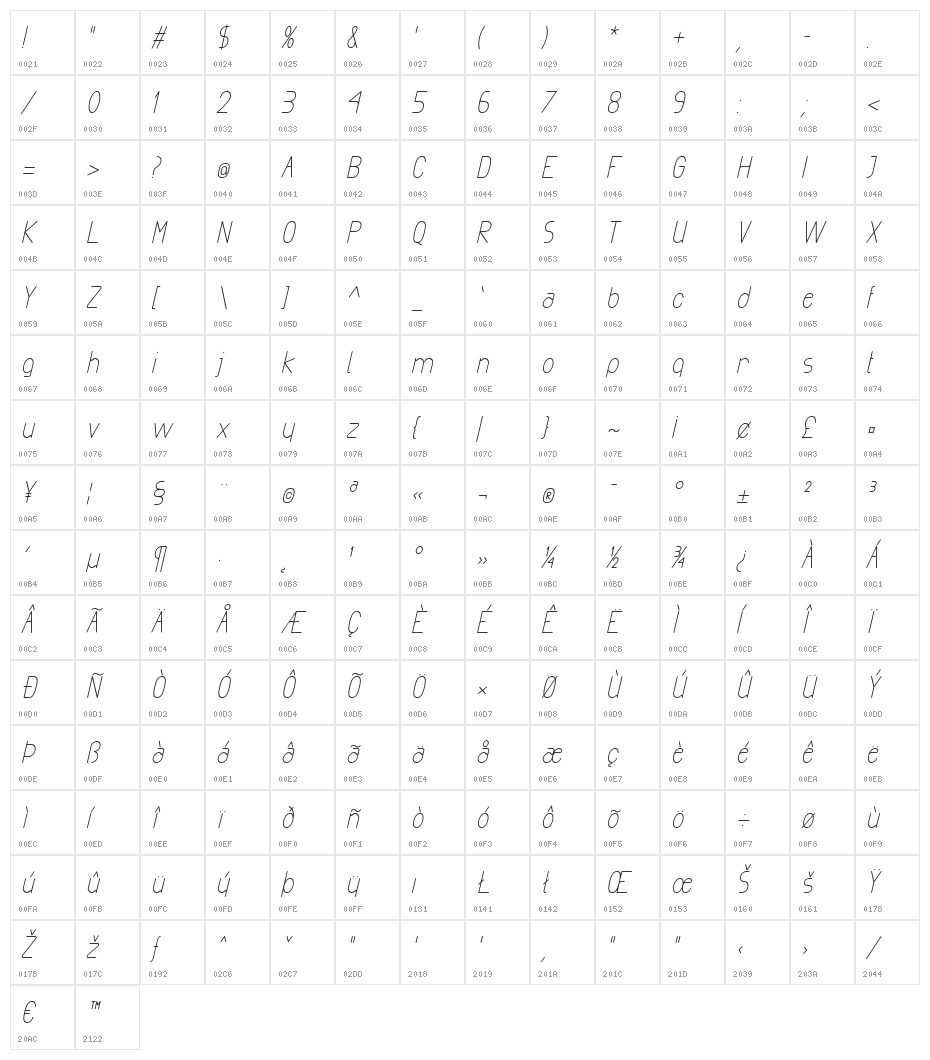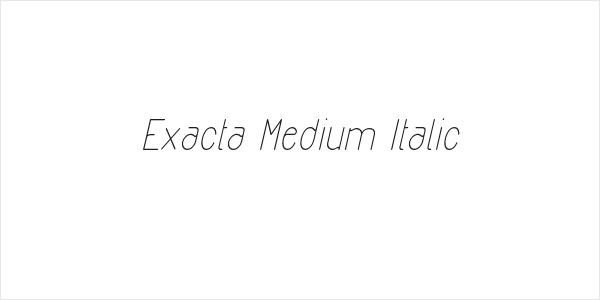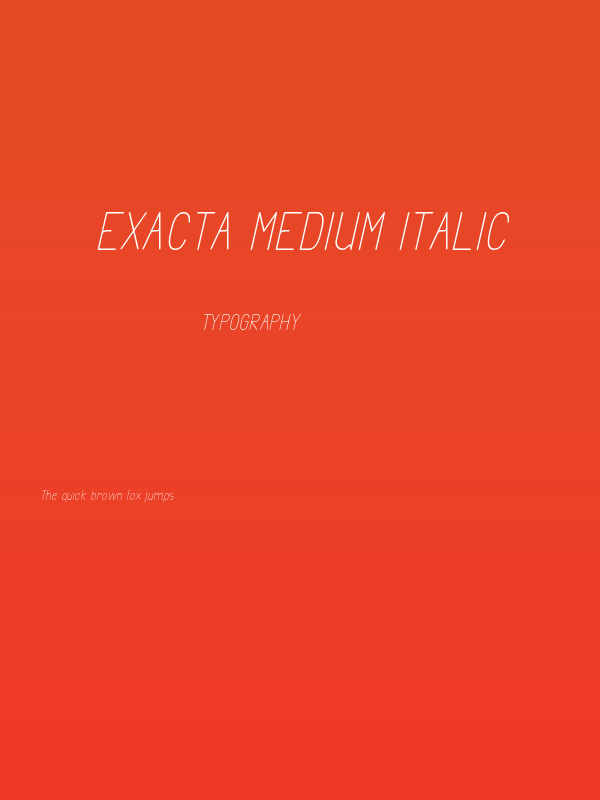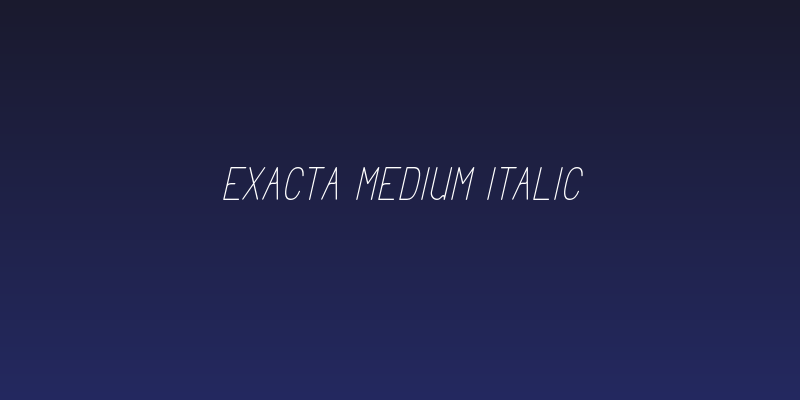
Exacta Medium Italic Font
Exacta Medium Italic Description
This font features a sleek and modern design with a distinct italic slant, giving it a dynamic and forward-moving appearance. The characters are crafted with a consistent stroke width, providing a clean and uniform look. The uppercase letters are tall and slightly narrow, while the lowercase letters maintain a balanced proportion, enhancing readability. The numerals are clear and straightforward, complementing the overall style. Special characters are elegantly integrated, maintaining the font's cohesive aesthetic. This font's simplicity and elegance make it versatile for various design applications.